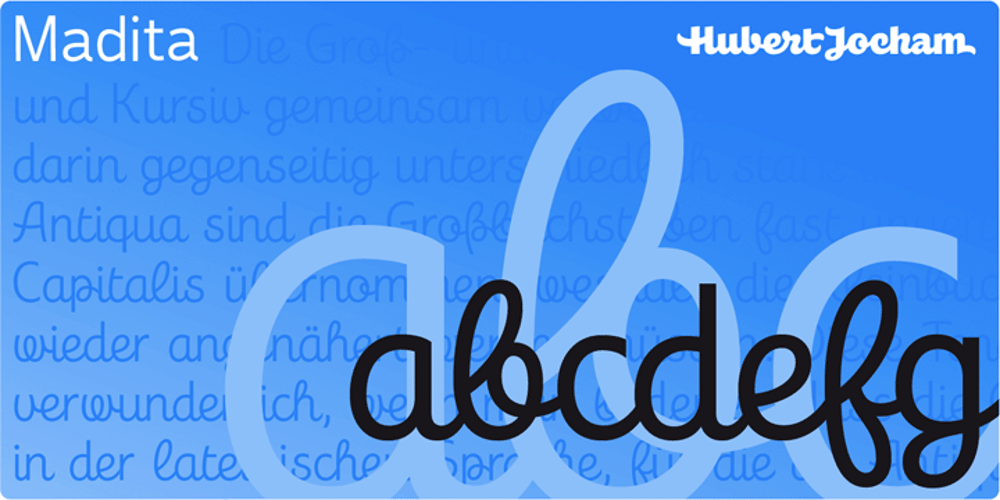
Madita Font Family was designed by Hubert Jocham and published by Hubert Jocham Type. Madita contains 6 styles and family package options. Madita started with the idea of an upright sans script. Unlike other script typefaces, some of the characters look fairly constructed. The endings are either vertical or horizontal. On the other hand there are the swashes of a flowing script woven into the sans stroke that create an interesting tension. Madita is surprisingly legible, even in smaller sizes. The upper case letters even work in all caps.